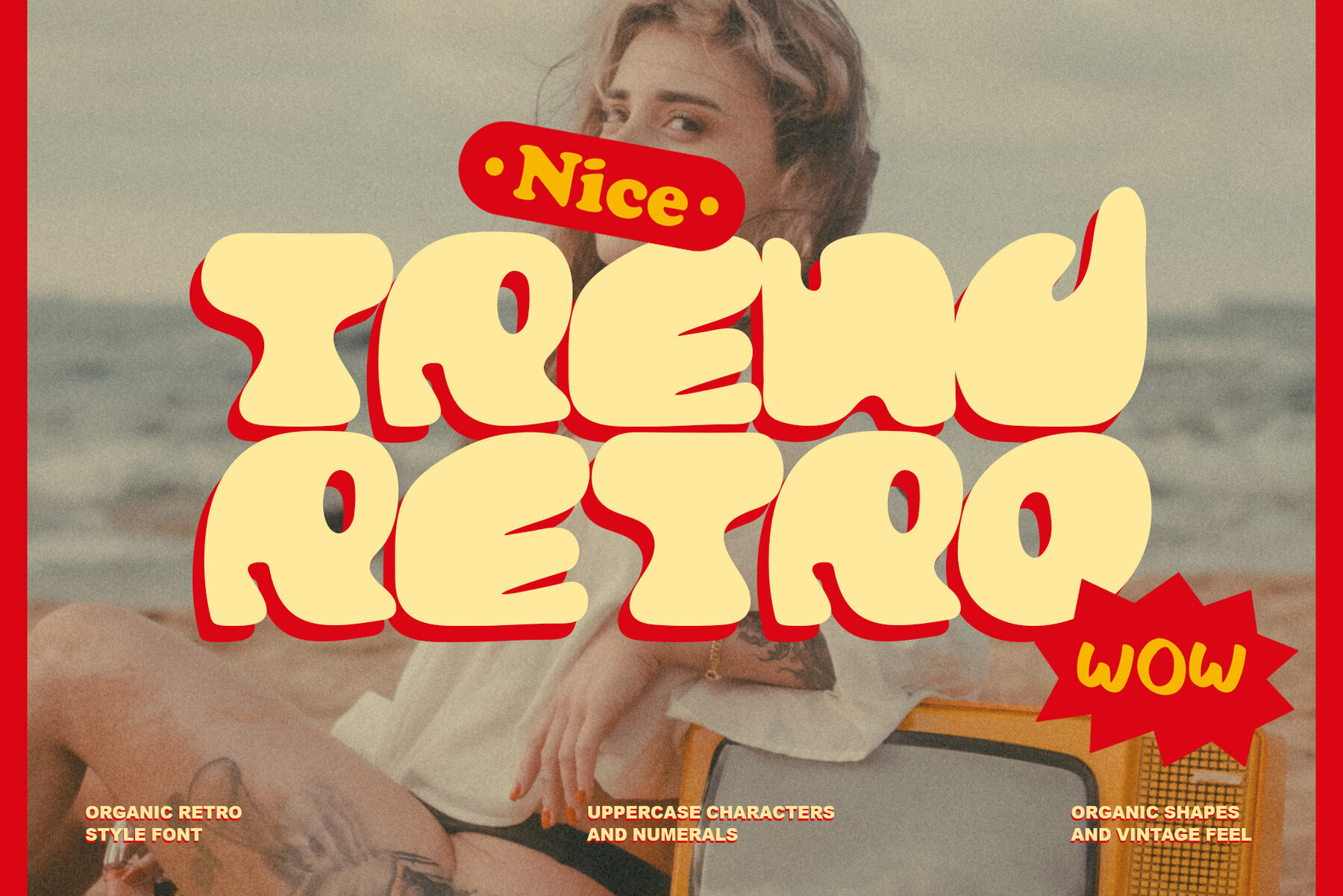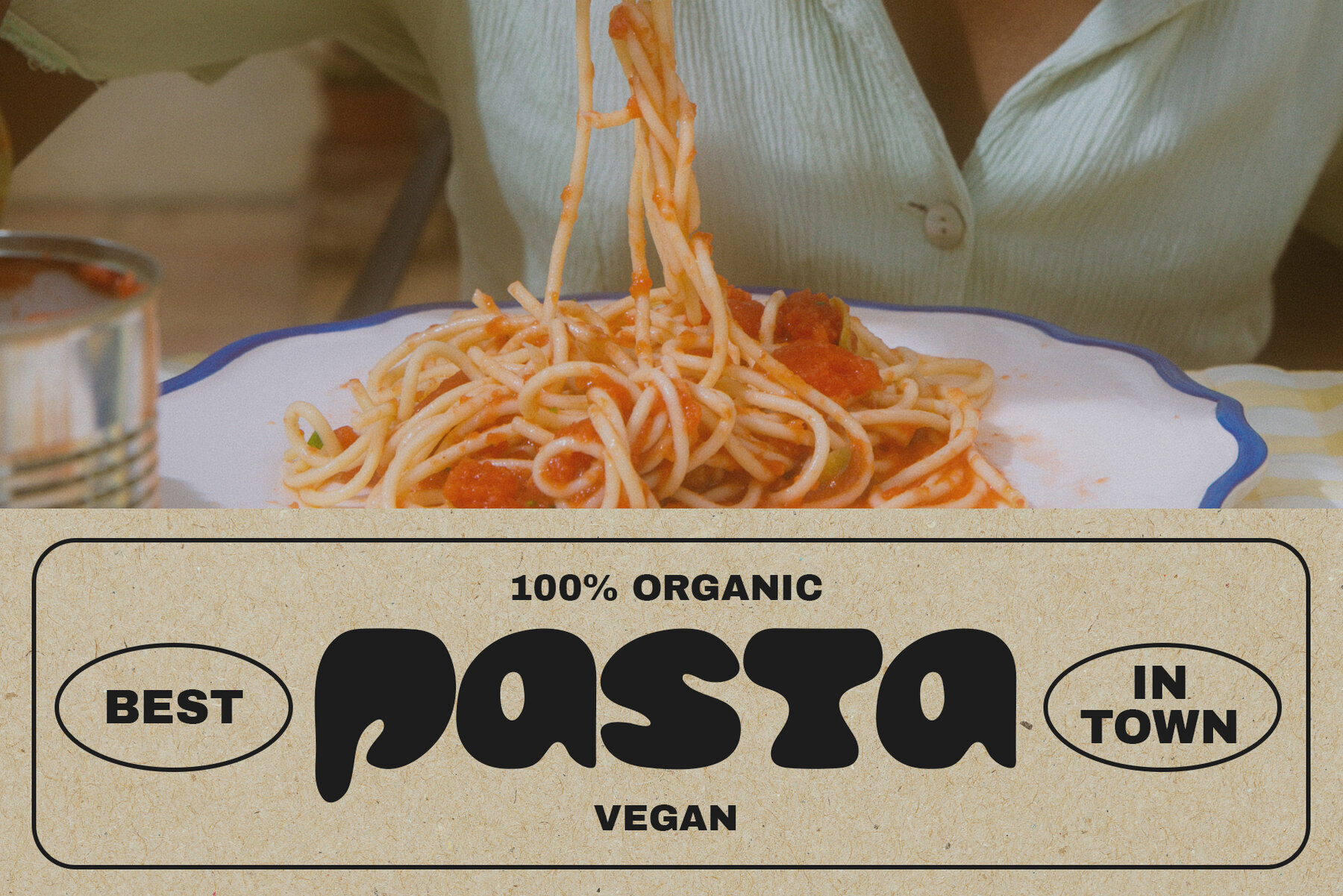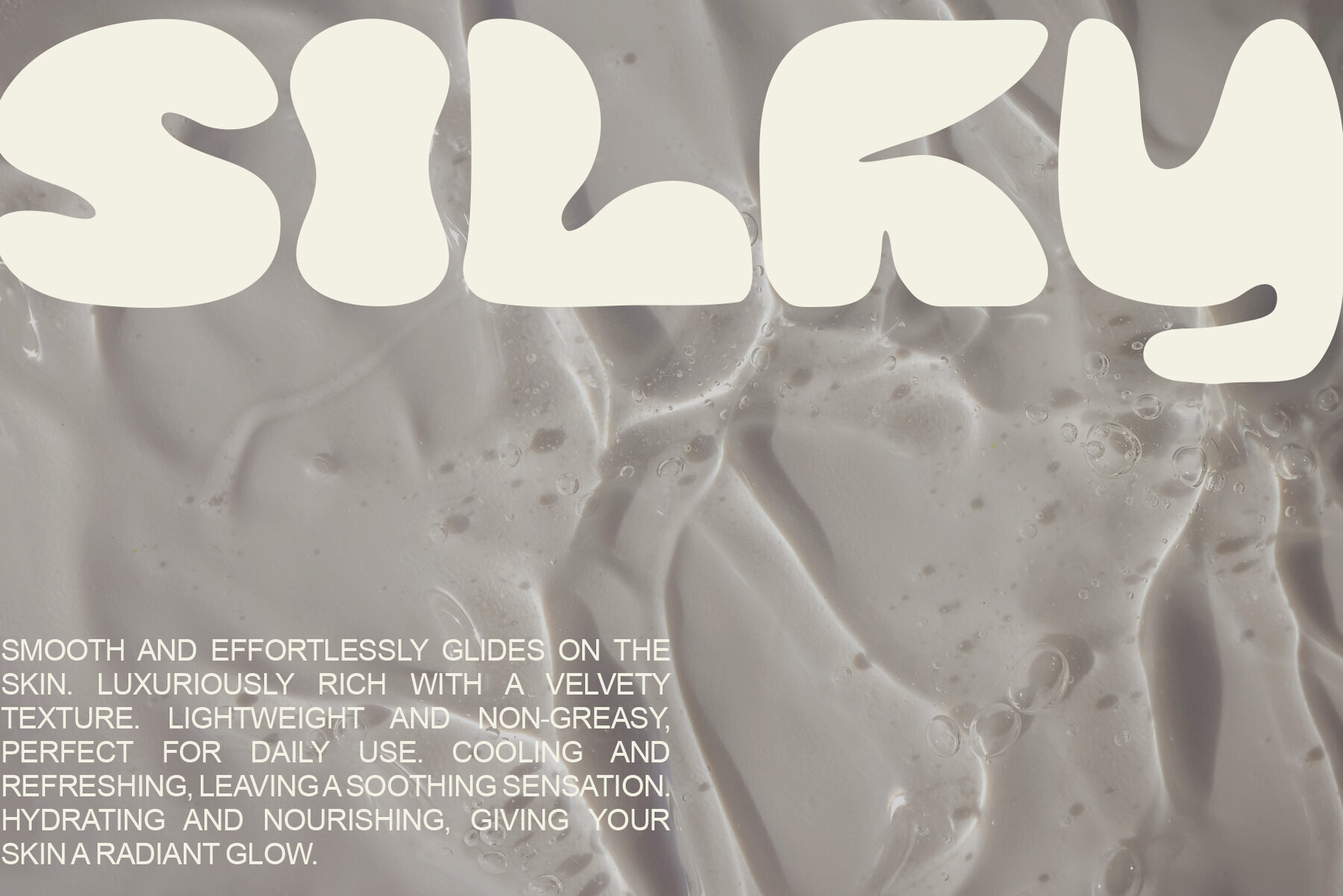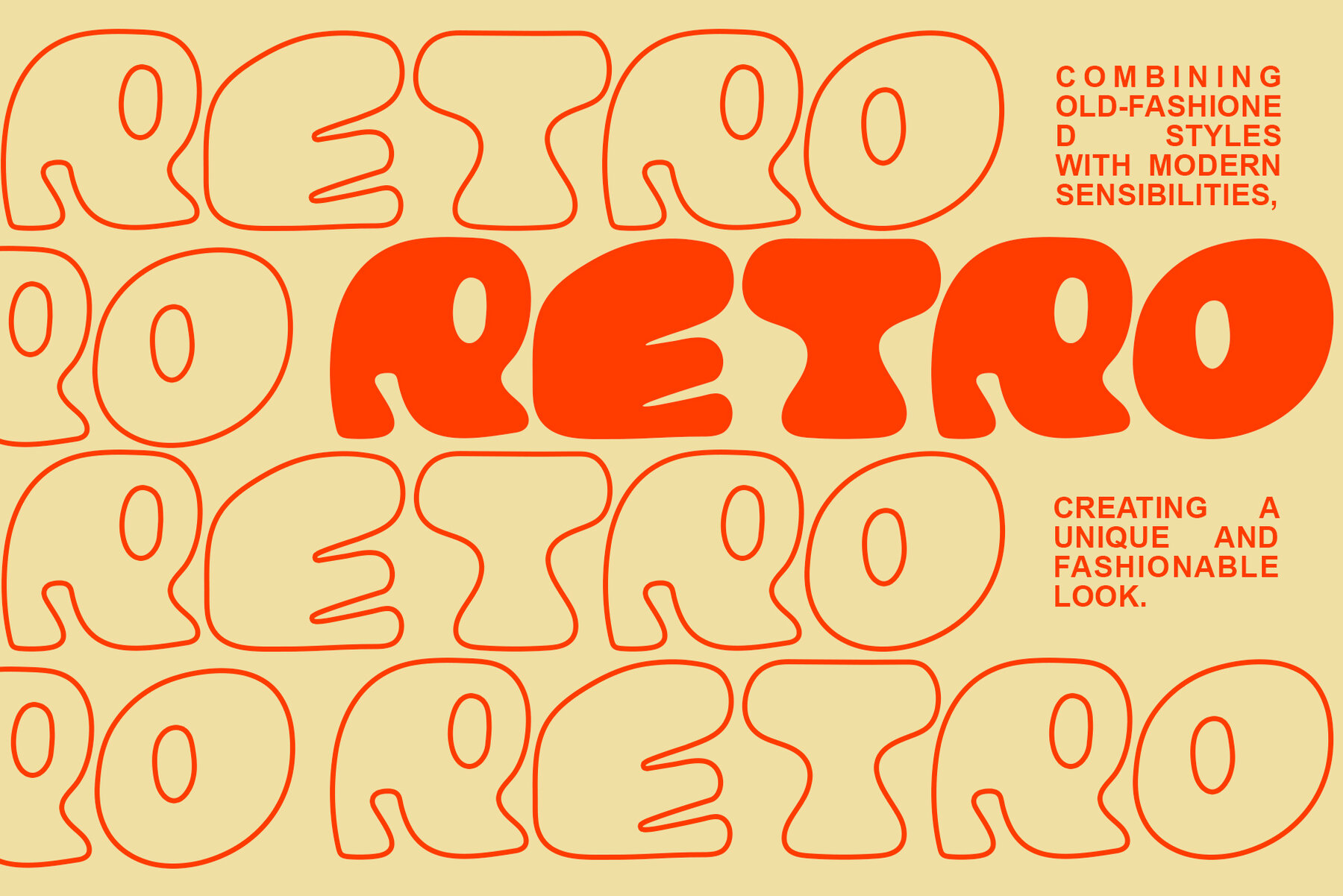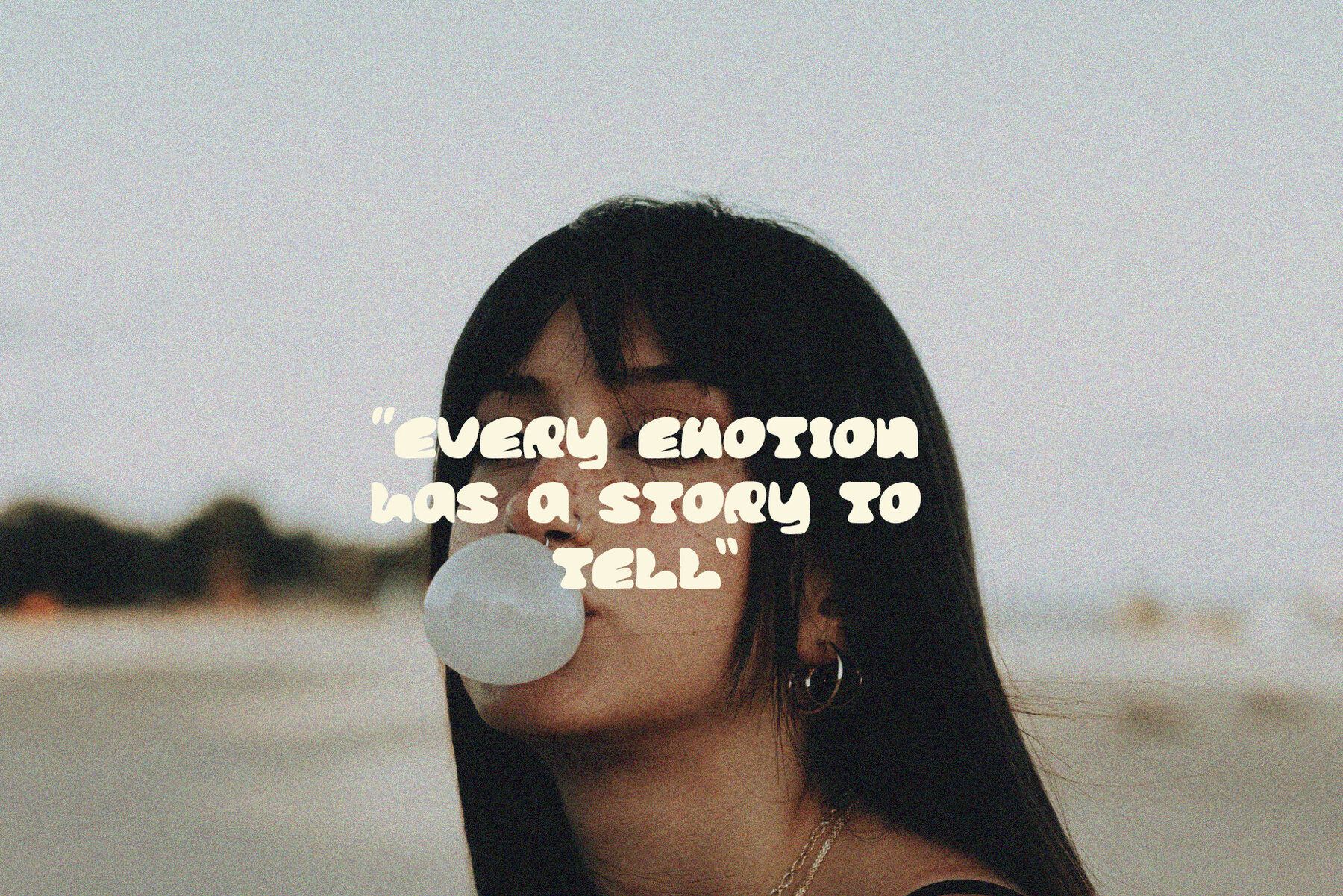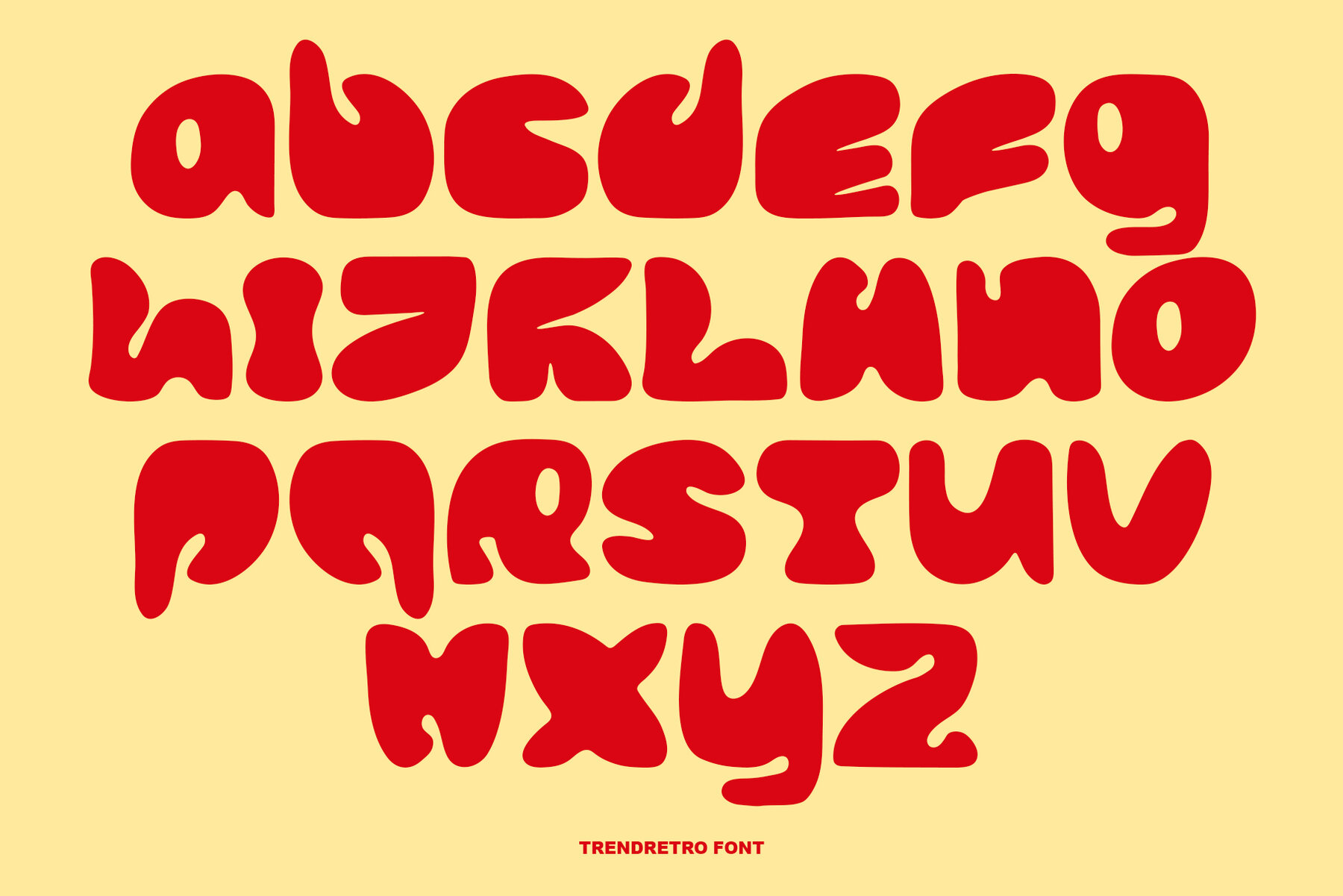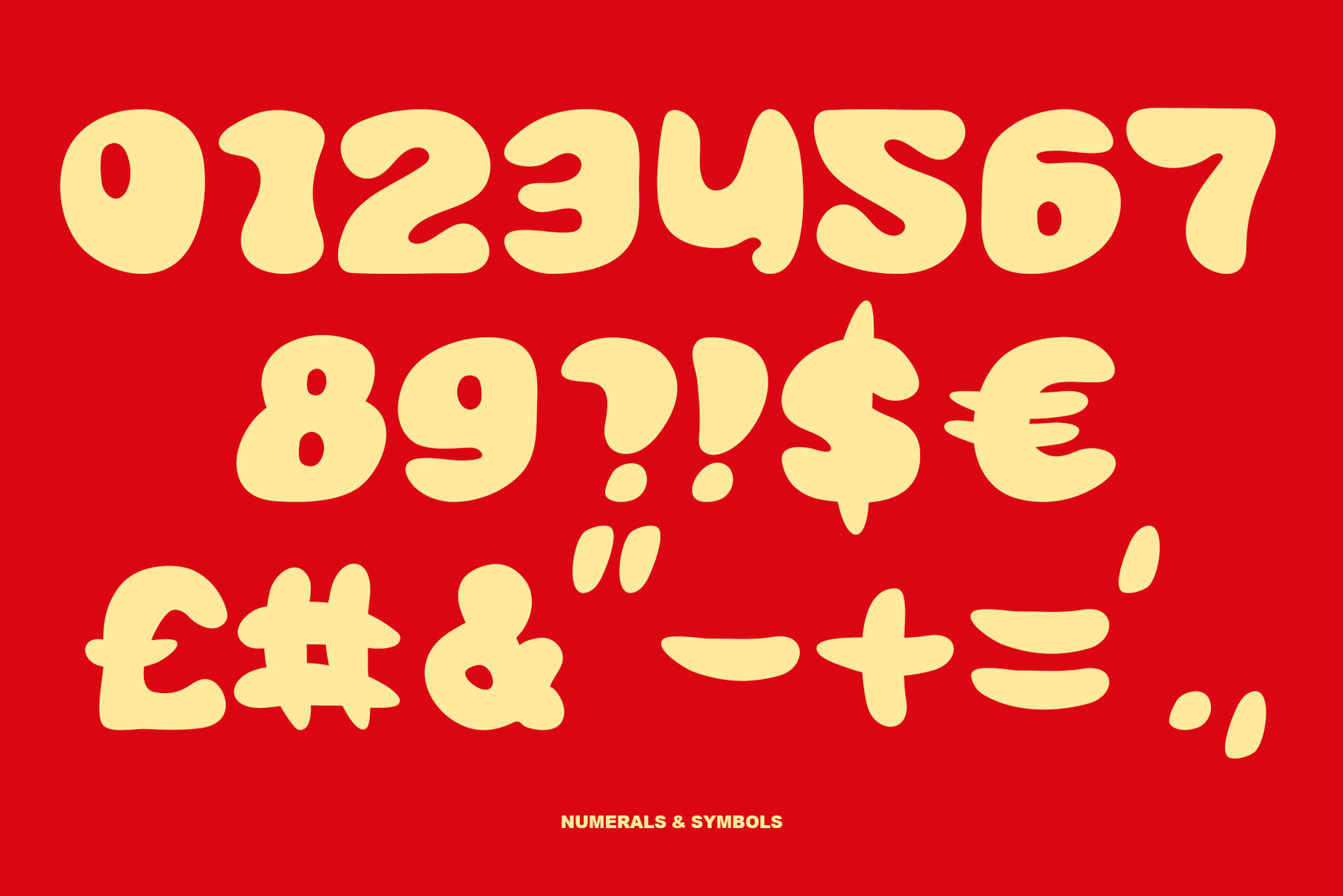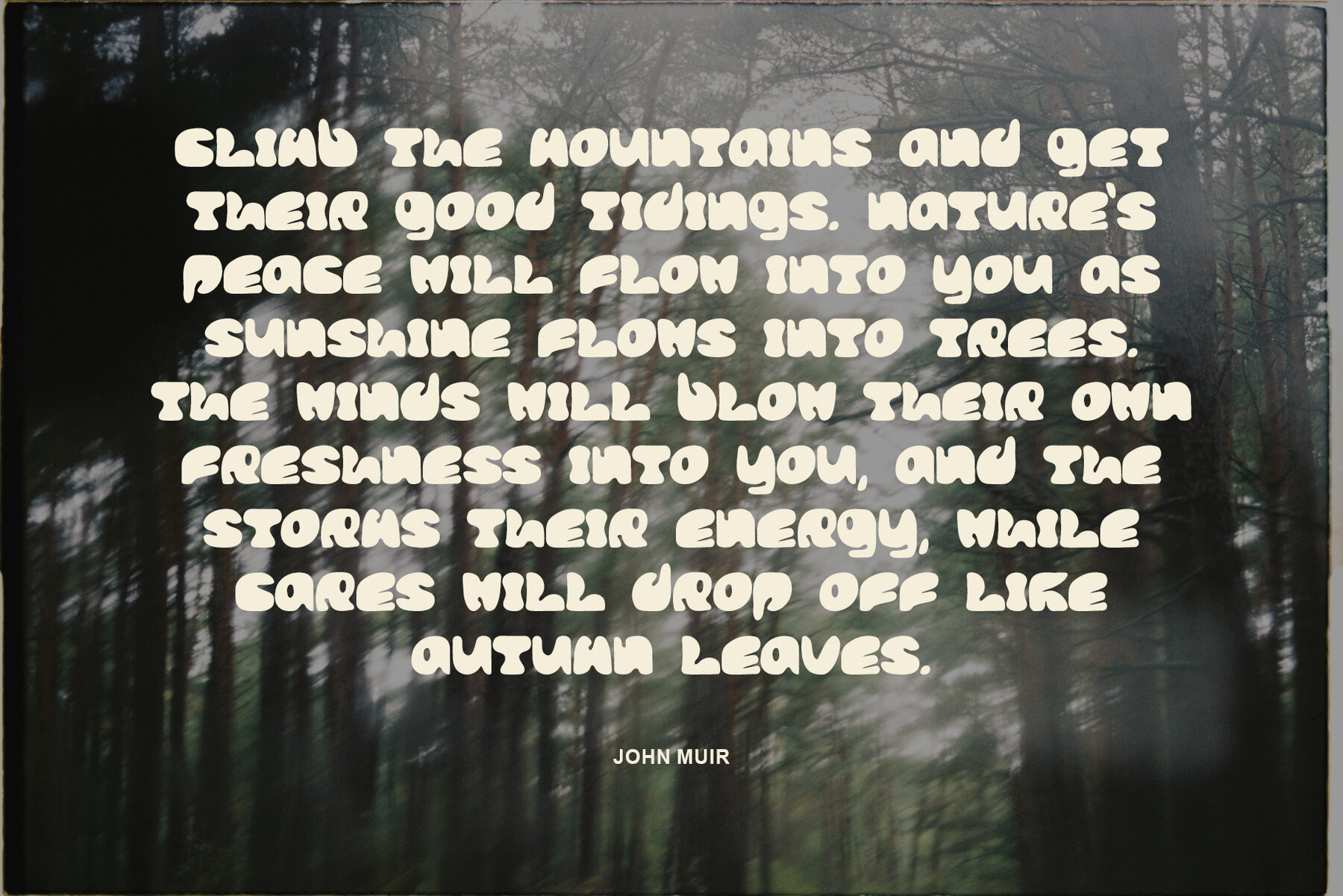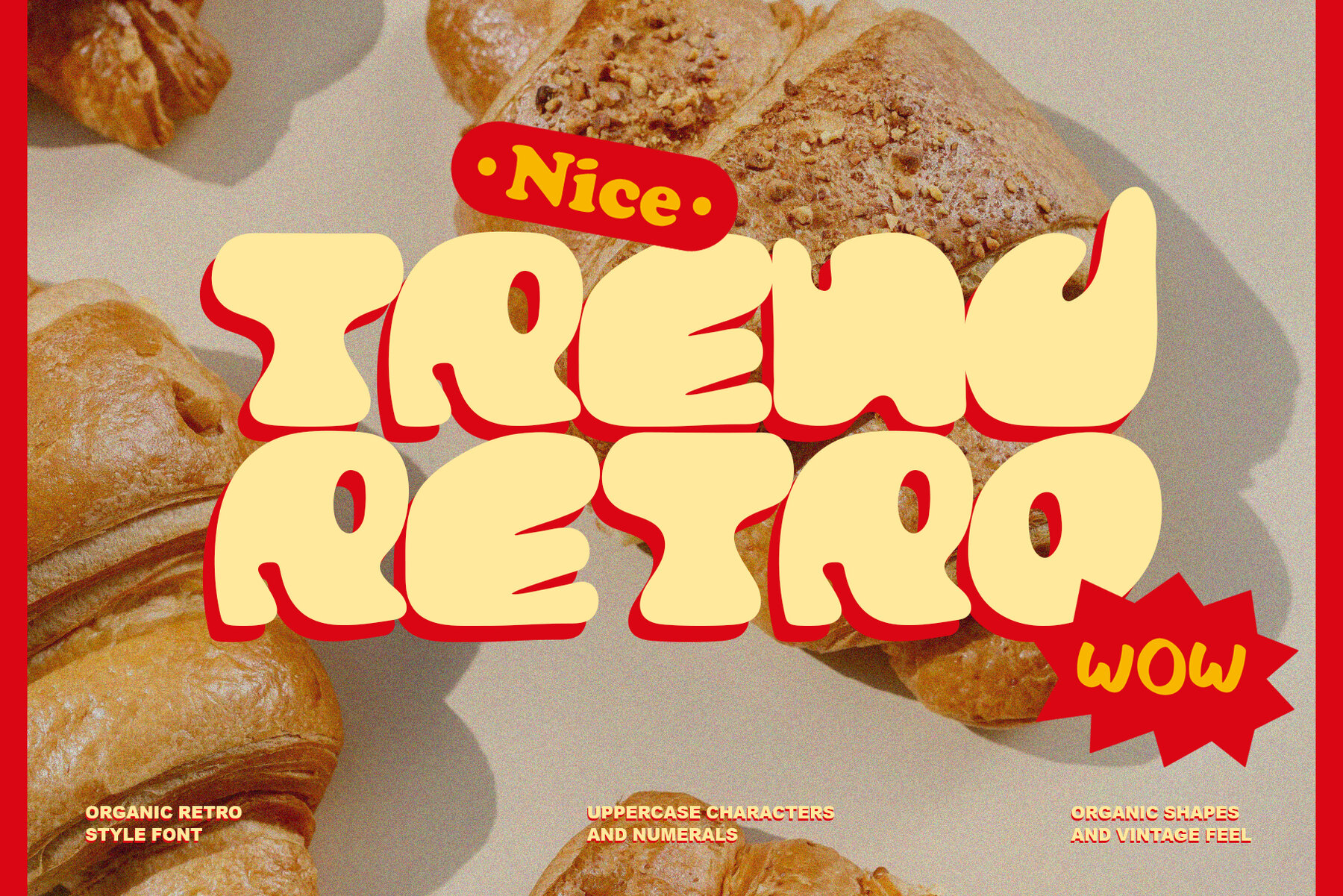
Trendretro Font
Trendretro
Trendretro is a one-of-a-kind typeface that seamlessly combines the allure of retro aesthetics with the fluidity of organic shapes. Each character is meticulously crafted with natural curves and flowing lines, echoing the essence of hand-drawn art. This harmonious blend creates a dynamic and lively appearance, perfect for projects aiming to evoke nostalgia while retaining a contemporary edge.
Ideal for use in logos, posters, and branding materials, this retro-inspired font infuses designs with a timeless elegance and creative flair. The font includes uppercase letters, numerals, and punctuation, offering versatility for any design need. Its unique aesthetic makes it a standout choice for those looking to achieve a nostalgic yet modern look in their visual communications.